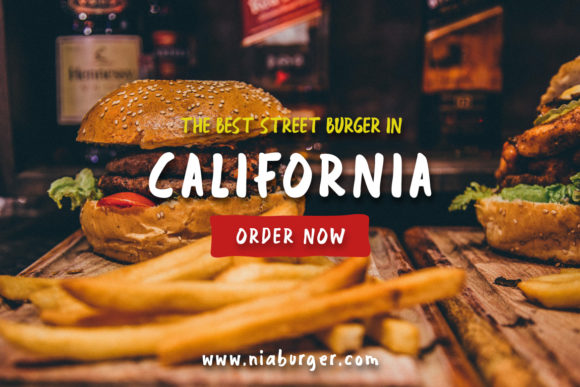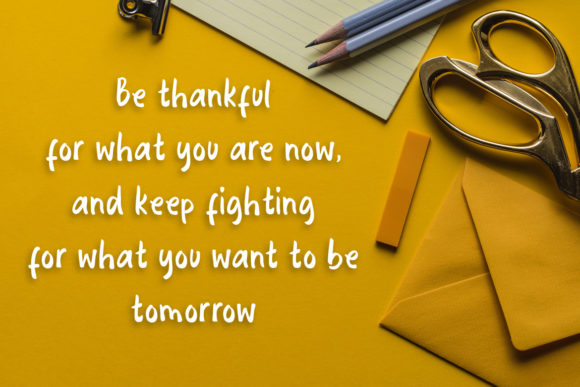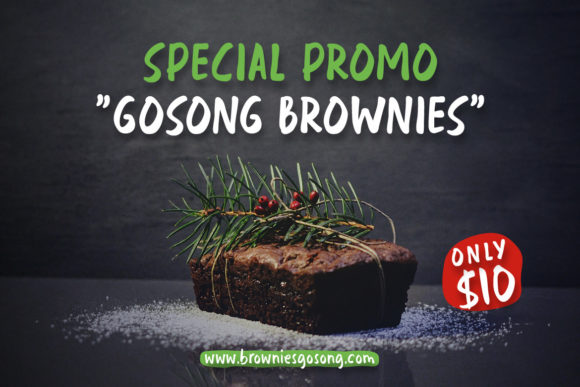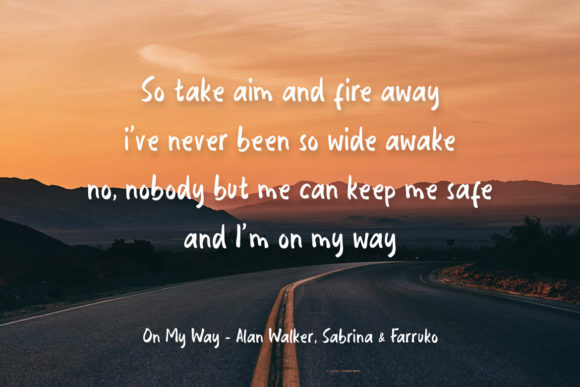
Introduction to Playpull Font
Have you ever found yourself staring at a blank page, pencil in hand, trying to bring a creative idea to life? The frustration and excitement of not knowing where to start can be overwhelming. But what if you had the perfect design resource to spark your imagination? Enter the Playpull Font, a handwritten font that’s as versatile as it is beautiful.
This high-quality font is perfect for designers who want to add a touch of personality to their projects. With its transparent background and playful flair, the Playpull Font is ideal for creating eye-catching graphics, logos, and even social media posts. And the best part? It’s available for a free download, making it an invaluable resource for designers on a budget.
Whether you’re working on a creative project or simply looking for a fresh design element, the Playpull Font is a valuable addition to any designer’s toolkit. Its unique and fun style makes it perfect for a multitude of occasions, from branding and marketing materials to editorial and social media content.
Key Features of Playpull Font
- Unique characteristics: The Playpull Font features a unique blend of modern and playful elements, making it perfect for creative projects that require a touch of whimsy.
Honest Review: Playpull Font
I recently came across the Playpull Font, and I’m excited to share my honest review with you. As a designer, I’m always on the lookout for high-quality design resources that can elevate my creative projects. The Playpull Font is a great find, and I’m happy to share my thoughts on it.
- ✨ Playpull Font offers a transparent background, which is perfect for creating visually appealing designs with subtle textures and backgrounds.
- ✨ The design is sleek and modern, making it ideal for creative projects that require a touch of sophistication.
- ⚠️ The Playpull Font may not be suitable for projects that require a bold, dramatic effect, as it’s more suited for subtle and understated designs.
- ⚠️ The font may not be as versatile as some other design resources, but it’s perfect for specific creative projects where a clean and simple look is desired.
Overall, I’m impressed with the Playpull Font. It’s a high-quality design resource that’s perfect for designers who want to add a touch of sophistication to their creative projects. While it may have some limitations, I believe it’s a great addition to any design toolbox.
Playpull Font
The Playpull Font is a versatile and creative design resource that can elevate your next project. This high-quality font is perfect for any creative project, offering a unique and modern aesthetic.
The Playpull Font is ideal for:
- Logos and branding materials.
- Social media graphics and advertisements.
- Presentations and documents.